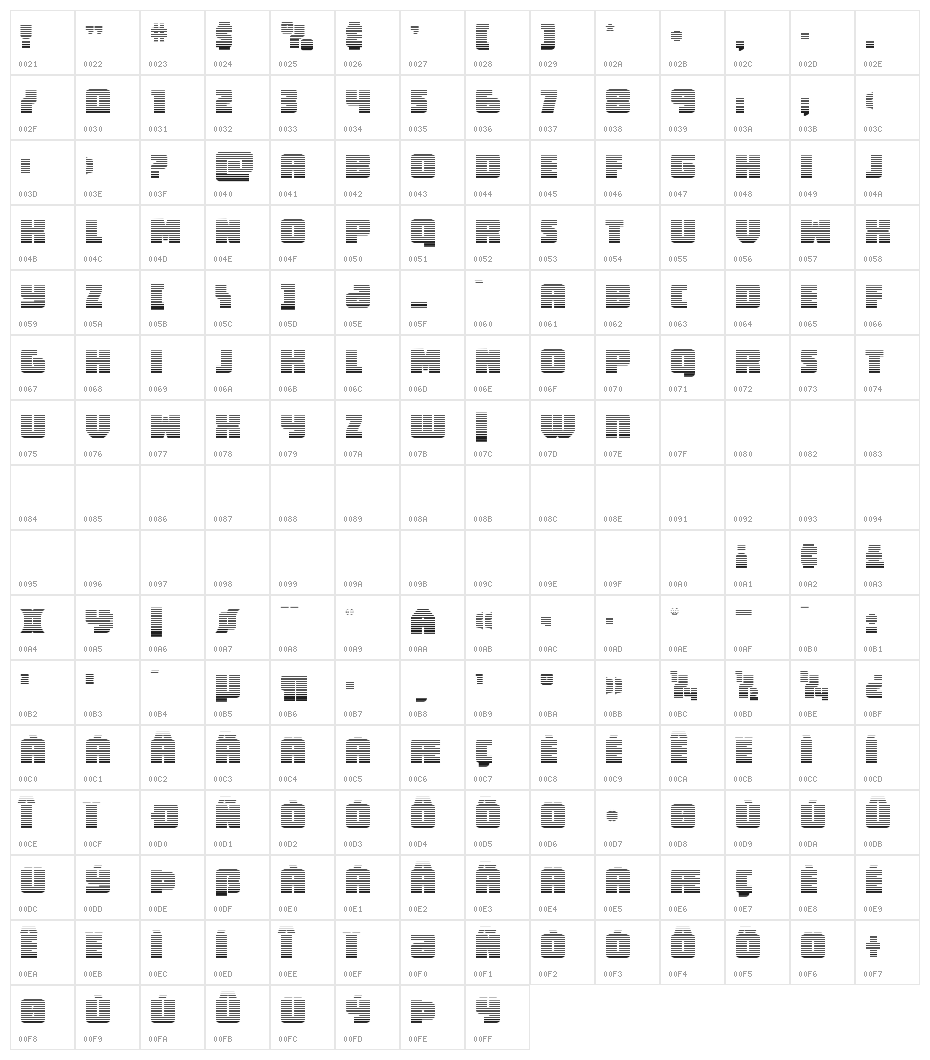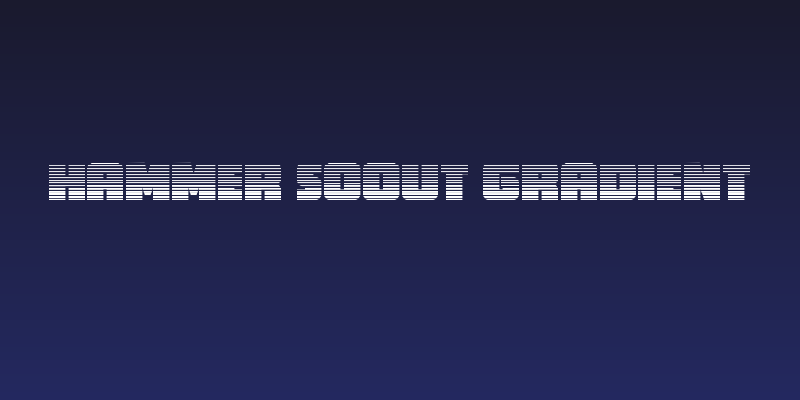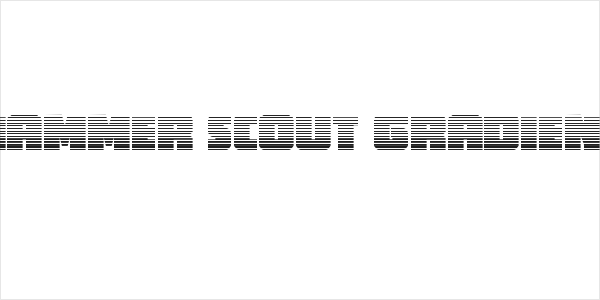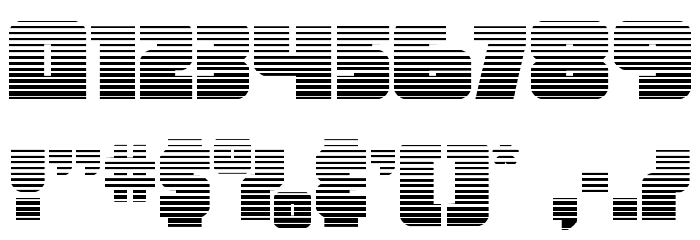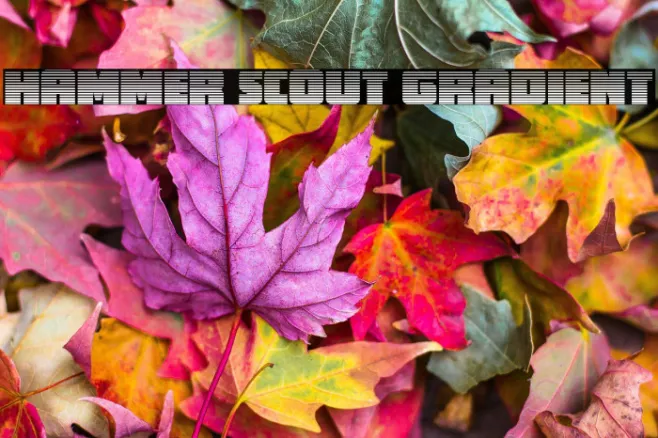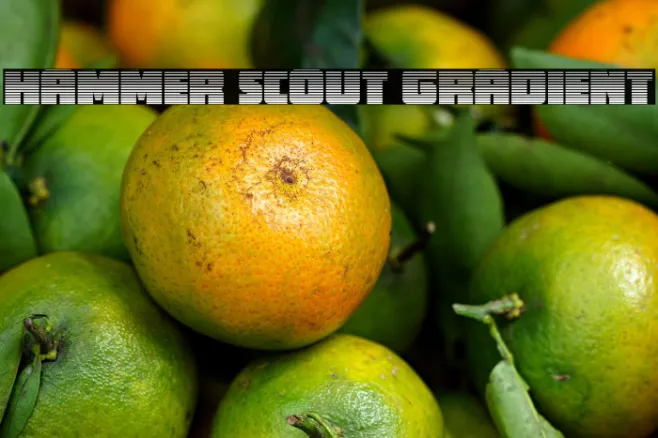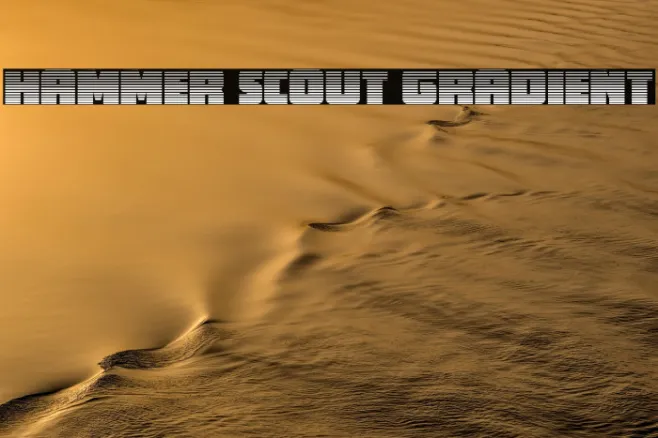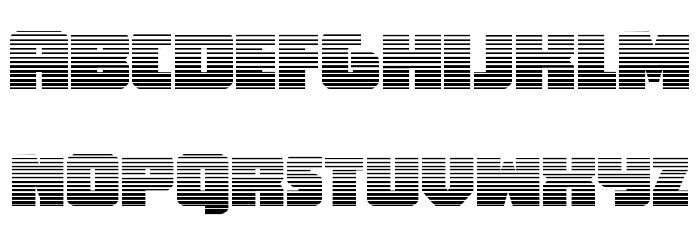
Hammer Scout Gradient Font
Hammer Scout Gradient Description
This font features a bold, futuristic design with a distinctive gradient effect created by horizontal lines that form each character. The uppercase and lowercase letters, as well as numbers and special characters, are all constructed with this unique striped pattern, giving the font a dynamic and modern appearance. The characters are wide and have a strong presence, making them ideal for attention-grabbing designs. The consistent use of horizontal lines across all characters creates a cohesive look, while the boldness of the font ensures readability even at smaller sizes.
| Proposed Projects | Ideal for sci-fi themed posters, modern branding, digital artwork, and video game graphics. |